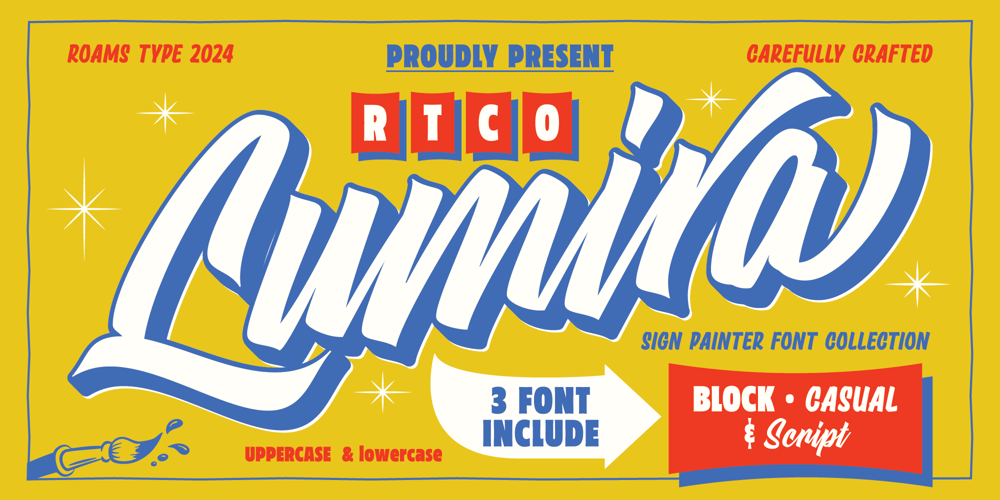
RTCO Lumira Font Family was designed by Abdul Rochman and published by Roams Type Co. RTCO Lumira contains 3 styles and family package options. This font was inspired by vintage sign painters and grocery store signs, which is thick and decorative so it looks dynamic this font is very suitable for branding or your store sign.There are 3 types of this font, including BLOCK, CASUAL, and SCRIPT.This font is suitable for graphic designs such as logotypes, merchandise, printed stickers, and other branding needs.